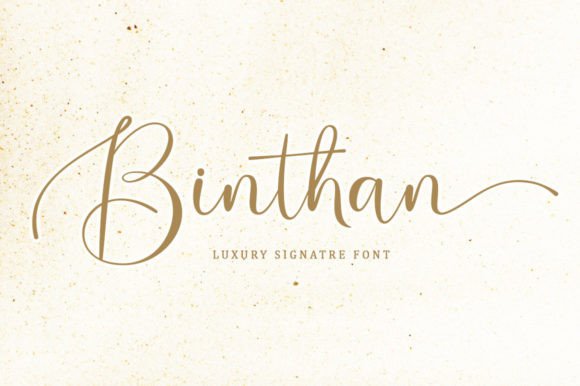
Journey into the realm of impeccable elegance and sophistication with Binthan Font, a signature script masterpiece that exudes timeless beauty and modern charm. This meticulously crafted handwritten font is a true testament to artistry, with its unique ligatures and hand-styled aesthetics. Immerse yourself in a world of unparalleled creativity, where your design projects come to life in breathtaking splendor.
Step into the world of Binthan Font, and let your imagination soar. Its versatility knows no bounds, offering limitless possibilities for your creative endeavors. From captivating logos and labels to bespoke packaging designs and blog titles, Binthan Font elevates your designs, leaving an indelible mark of sophistication and charm.
With Binthan Font, your social media presence will radiate with individuality and flair. Craft Instagram designs that captivate your audience, leaving them mesmerized by your stunning visuals. Engage your followers with posters and wedding designs that exude elegance and charm. Unleash your creativity and let Binthan Font transform your designs into masterpieces that leave a lasting impression.
Explore the endless possibilities of Binthan Font, a treasure trove of creative expression. Its PUA encoding opens up a world of amazing glyphs and ligatures, empowering you to effortlessly embellish your designs with intricate details and artistic flourishes.
Binthan Font is more than just a font; it's an invitation to embark on a creative journey, where your vision takes center stage. Say goodbye to mundane typography and embrace the extraordinary with Binthan Font. Its carefully crafted characters will bring a touch of magic to your designs, captivating your audience with their timeless beauty and modern elegance.
Take the plunge into the world of Binthan Font and elevate your designs to new heights of artistry. Embrace the power of creativity and let your imagination run wild. With Binthan Font as your creative companion, you'll leave an indelible impression on the world, one design at a time.